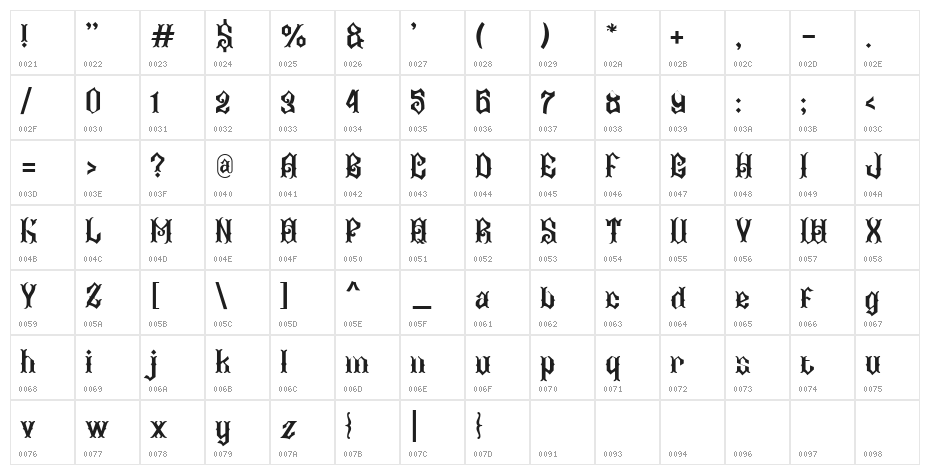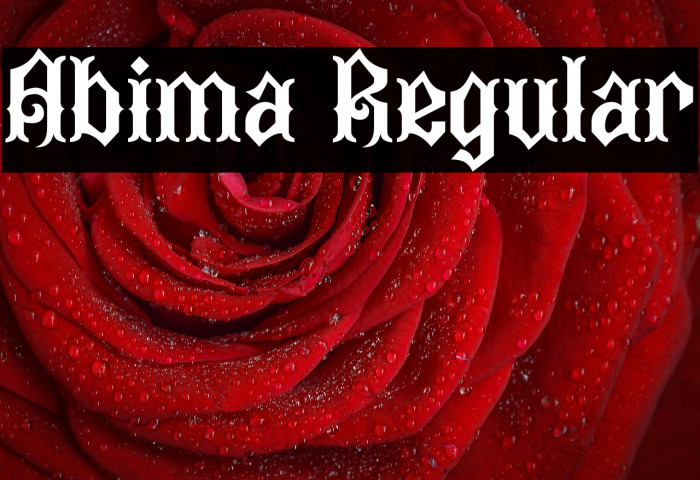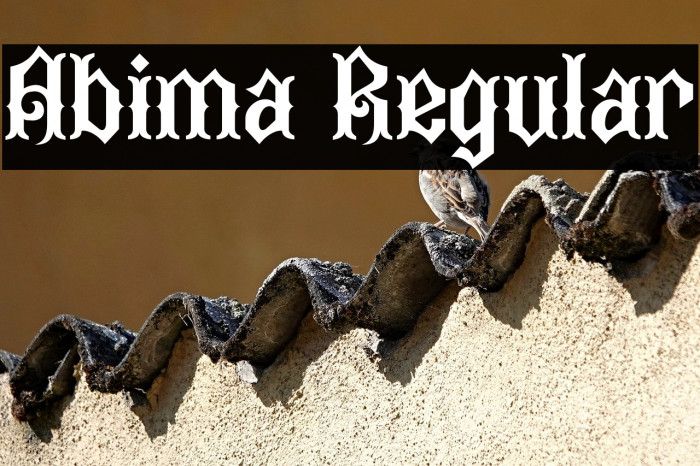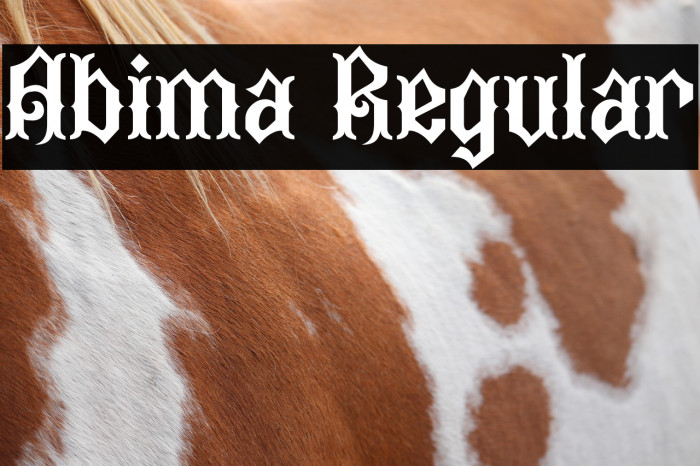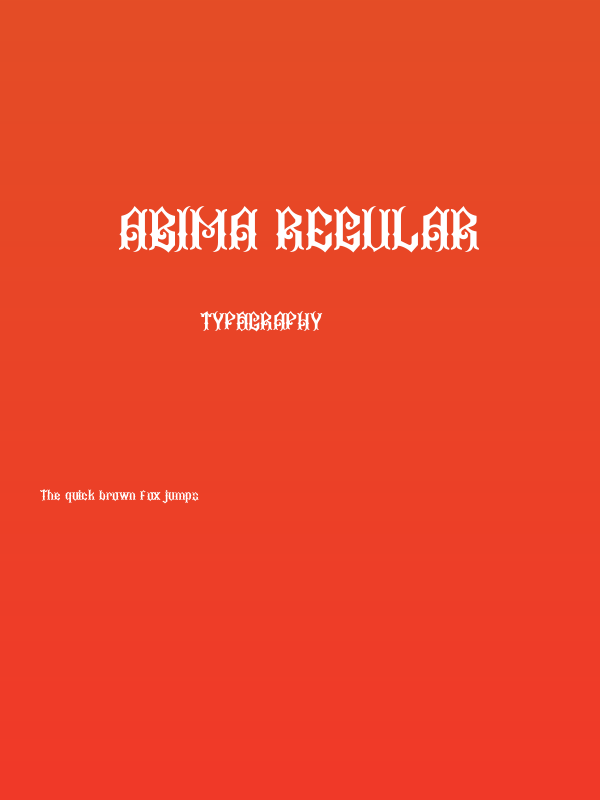
Abima Regular Font
✎ Gothic
Abima Regular Description
A bold, decorative blackletter font with sharp, angular edges and a medieval aesthetic.
| Overall Style | Decorative, Gothic |
| Proposed Projects | Posters, headlines, logos, branding with a historical or gothic theme. |